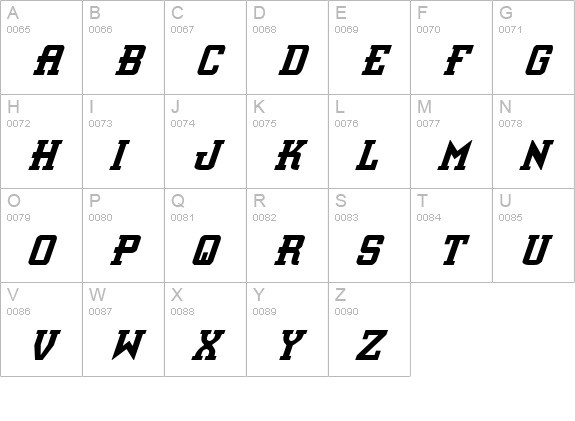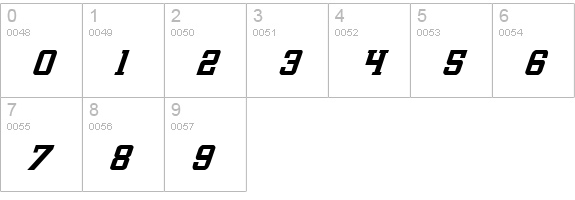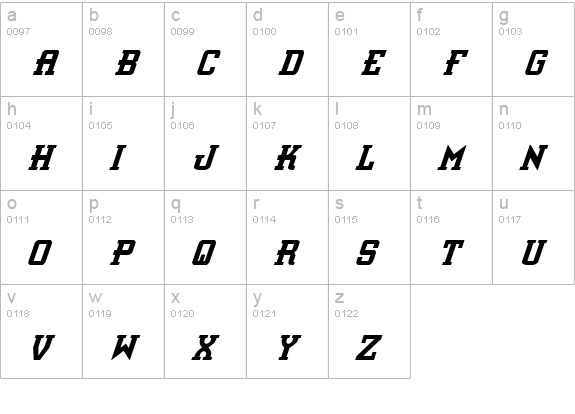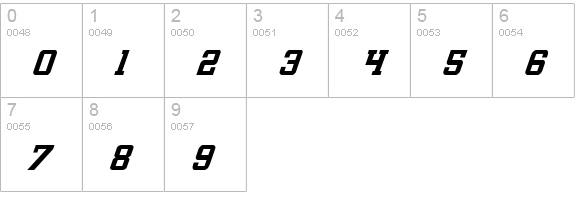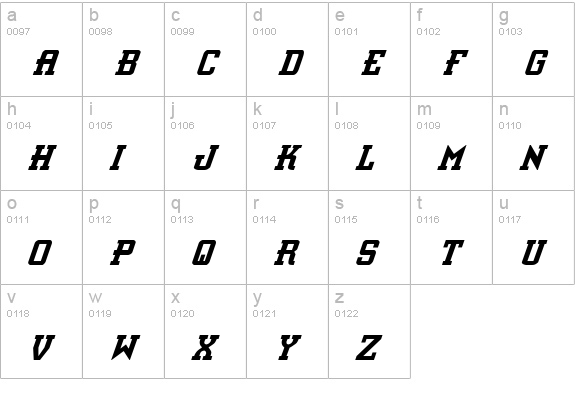
Interceptor Condensed Italic is a distinctive, condensed-width, italic variant in the Interceptor typeface family \xE2\x80\x94 well suited to design and typography projects.
Interceptor Condensed Italic font is a sleek and modern typeface that exudes a sense of speed and dynamism. Its italicized design adds a touch of elegance and sophistication, making it perfect for projects that require a touch of flair. The condensed style of the font allows for efficient use of space without sacrificing readability, making it ideal for headlines, posters, and branding materials. What sets Interceptor Condensed Italic font apart is that it is available for free download at FontsMarket.com. This means that you can easily access this stylish and versatile font without any cost, making it a valuable addition to your design toolkit. Whether you're working on a professional project or a personal creative endeavor, Interceptor Condensed Italic font offers the flexibility and style you need to make a lasting impression.